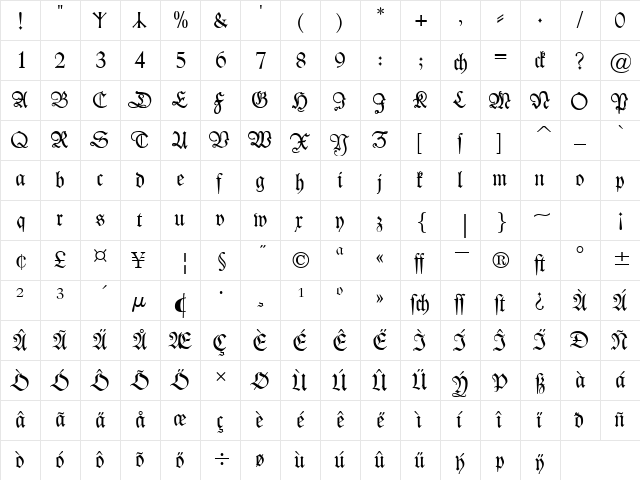
Kleist-Fraktur Zierbuchstaben Regular
| Designer | Dieter Steffmann |
Design Context for Kleist-Fraktur Zierbuchstaben Typeface
Kleist-Fraktur Zierbuchstaben draws on the rich tradition of blackletter calligraphy, with dense, angular strokes that evoke medieval manuscripts and old-world craftsmanship.
Well-suited to band logos, craft beer branding, tattoo lettering, and heritage-themed identities.
Font Pairing: Pair with a clean neutral sans-serif for body copy to let Kleist-Fraktur Zierbuchstaben's character lead without overwhelming the composition.
Pro Tip: Use Kleist-Fraktur Zierbuchstaben sparingly at large sizes. Even a single word set in blackletter can define the visual register of an entire design.